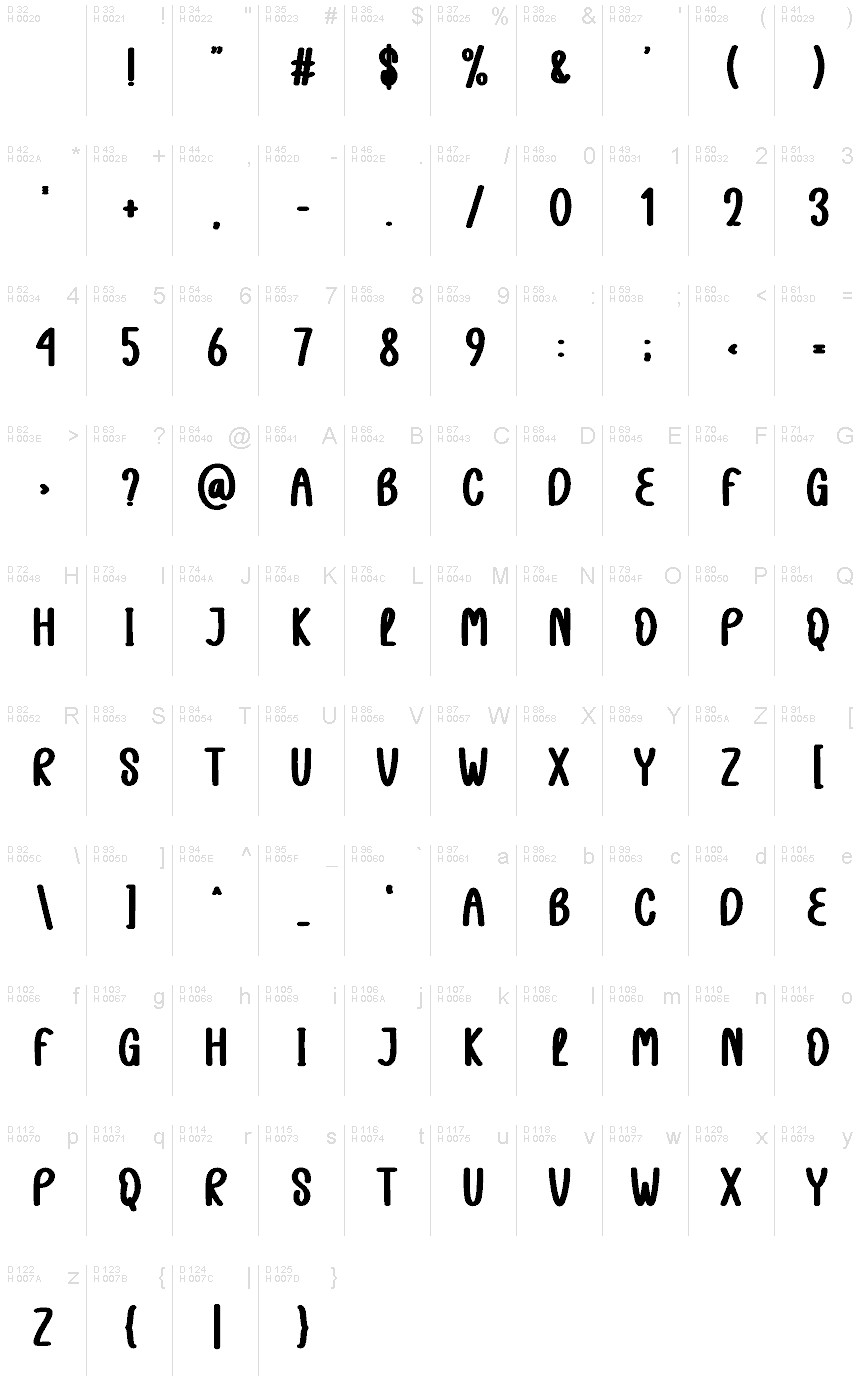
Barbie Car
Barbie Car font by Andi Moz is a quirky and retro-inspired brush font. It has a casual style with a playful appearance that gives it an immediate bold presence. Its condensed nature also adds to the font’s overall aesthetic and original style, making any text written with the collection appear interesting and catchy.